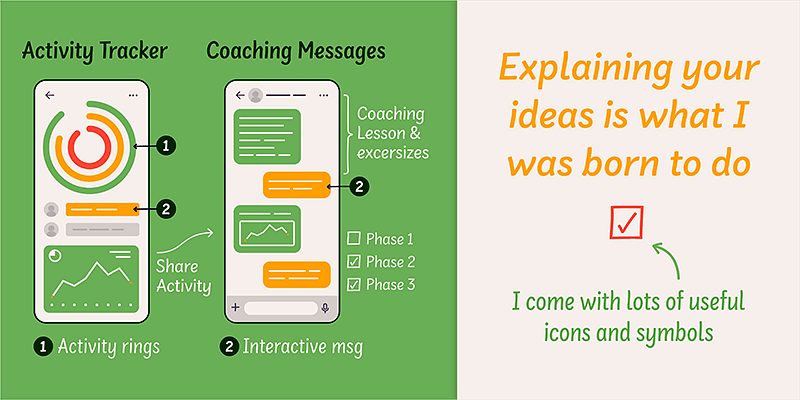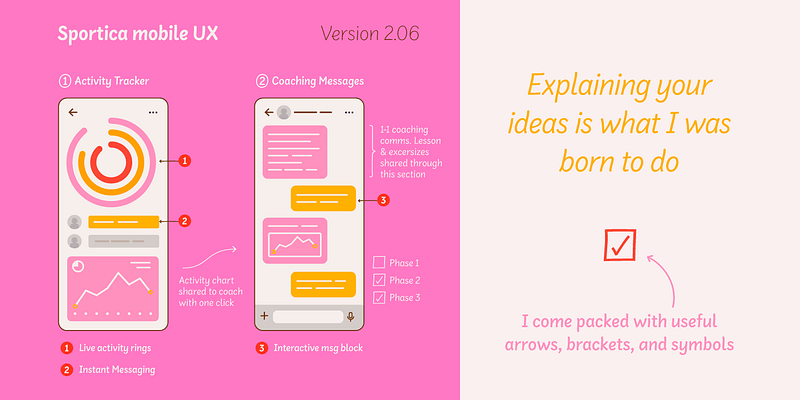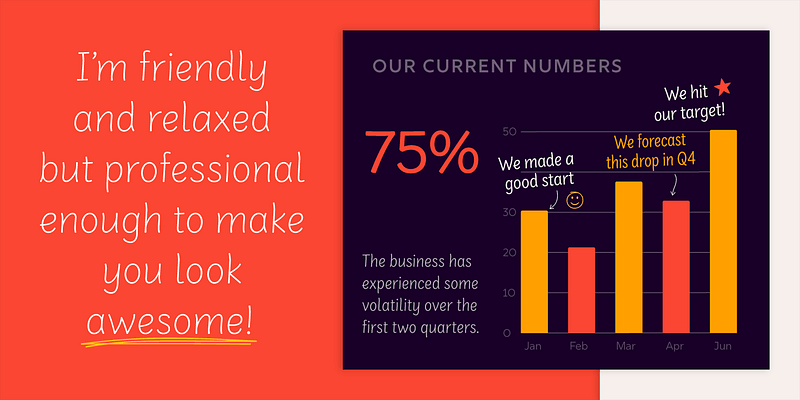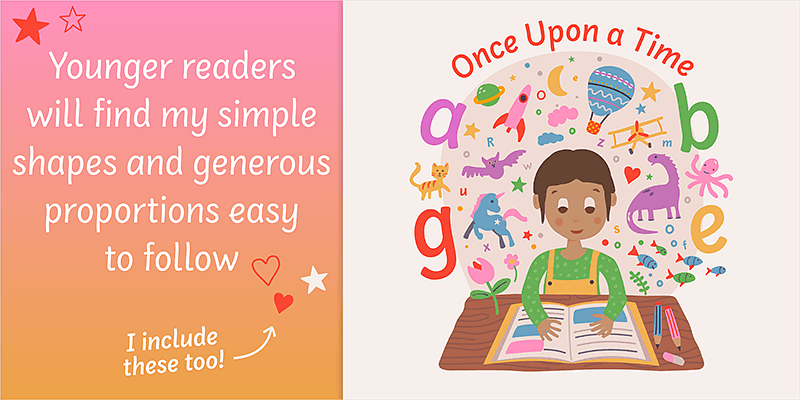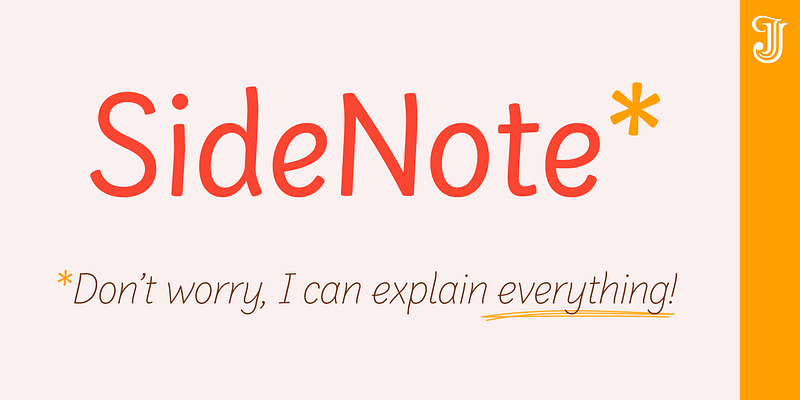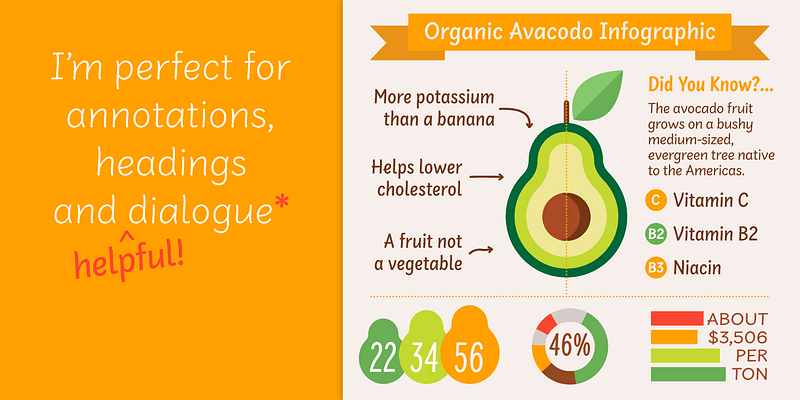
Hello! I’m SideNote. I specialize in annotations, headings and friendly dialogue. I’m perfect for descriptions and explanatory text. Use me to deliver tricky information in a helpful, reassuring manner.
I look friendly and relaxed but professional enough to make you look awesome. I add personality to otherwise dry information making it fun and easier to understand. Whether you’re pulling some slides together or explaining your work, think of me as your friendly assistant
I come with all sorts of useful features, like emoji, arrows and underlines.